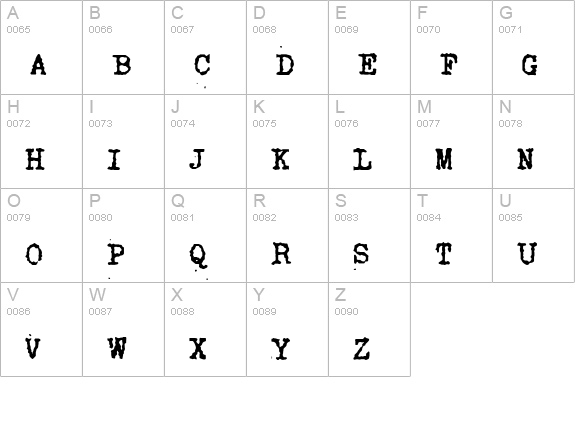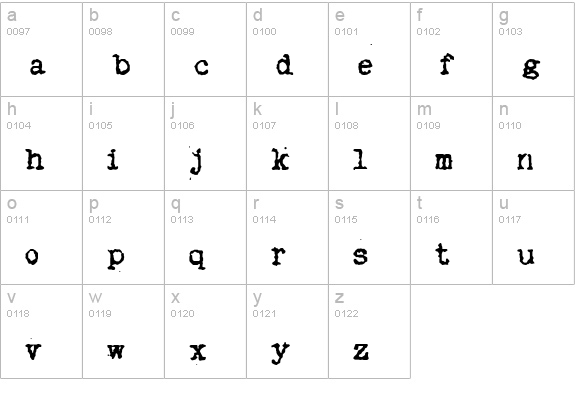
My Old Remington Font Details
My Old Remington font is a charming and nostalgic typeface inspired by vintage typewriters. Its classic and elegant design evokes a sense of old-world charm and sophistication, making it perfect for a wide range of projects from invitations to branding. The timeless appeal of My Old Remington font adds a touch of vintage flair to any design. And the best part? My Old Remington font is completely free to download at FontsMarket.com. So whether you're a seasoned designer looking to add a touch of nostalgia to your work or a novice searching for the perfect font for your next project, My Old Remington font is the ideal choice. Download it now and let your creativity shine with this timeless and versatile typeface.